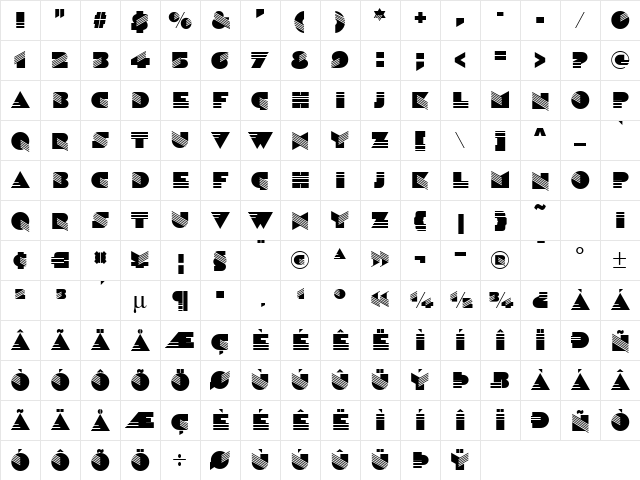
Sinaloa ICG Regular
Design Context for Sinaloa ICG
Sinaloa ICG is a composed and adaptable typeface that performs quietly and consistently across a wide range of design contexts.